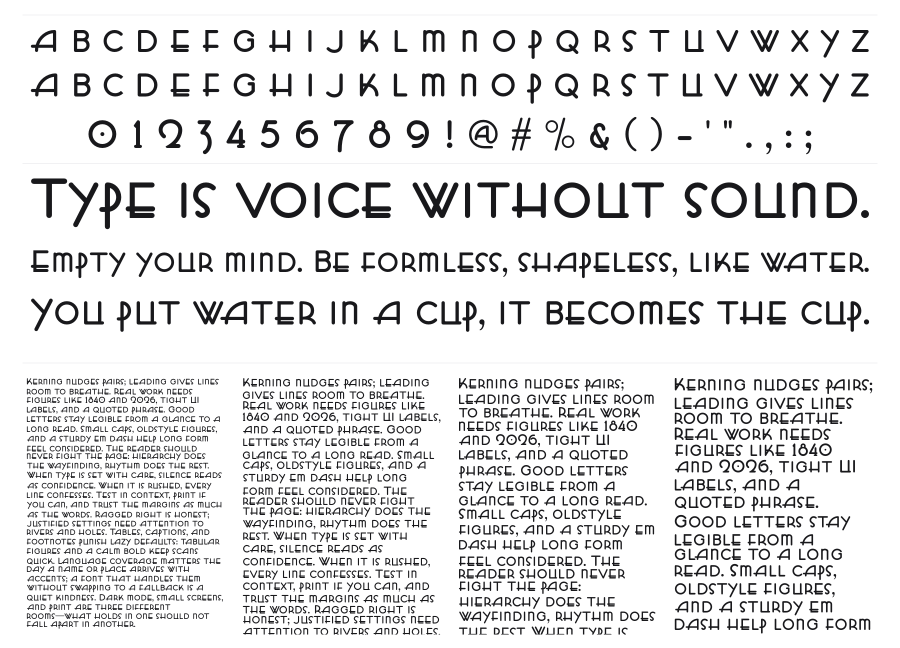
HFF Zeldom Zen
HFF Zeldom Zen is a wide monoweight sans-serif with flat terminals and playful geometric construction that sits somewhere between art deco and underground zine culture. Small crossbar details and irregular stroke interruptions give it a handcrafted feel without veering into full script territory. It works best at large sizes where its quirky character reads clearly.